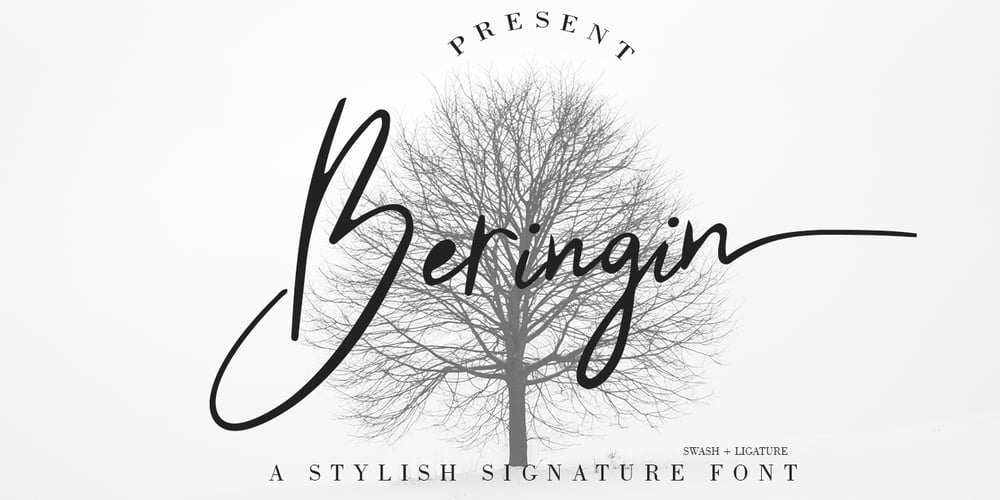
Beringin Font Family was designed by Asep Rendi and published by Arendxstudio. Beringin contains 1 styles and family package options. Beringin is a signature font that is unique and elegant. It is designed with an original hand stroke so it will be very suitable for your design projects. Features : • Character Set A-Z • Numerals & Punctuations (OpenType Standard) • Accents (Multilingual characters) • Ligature • Swash